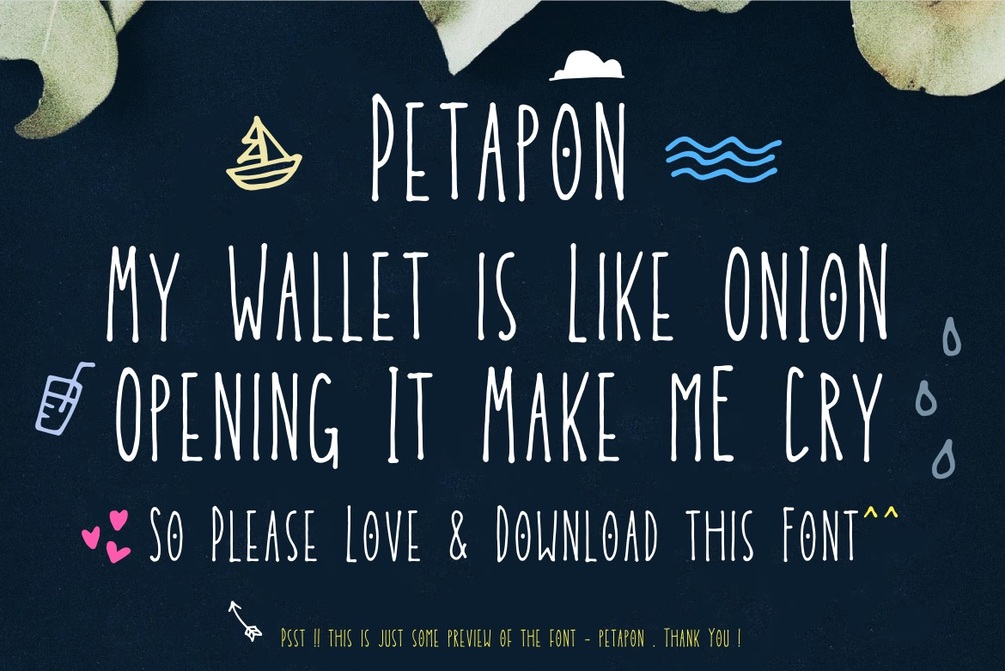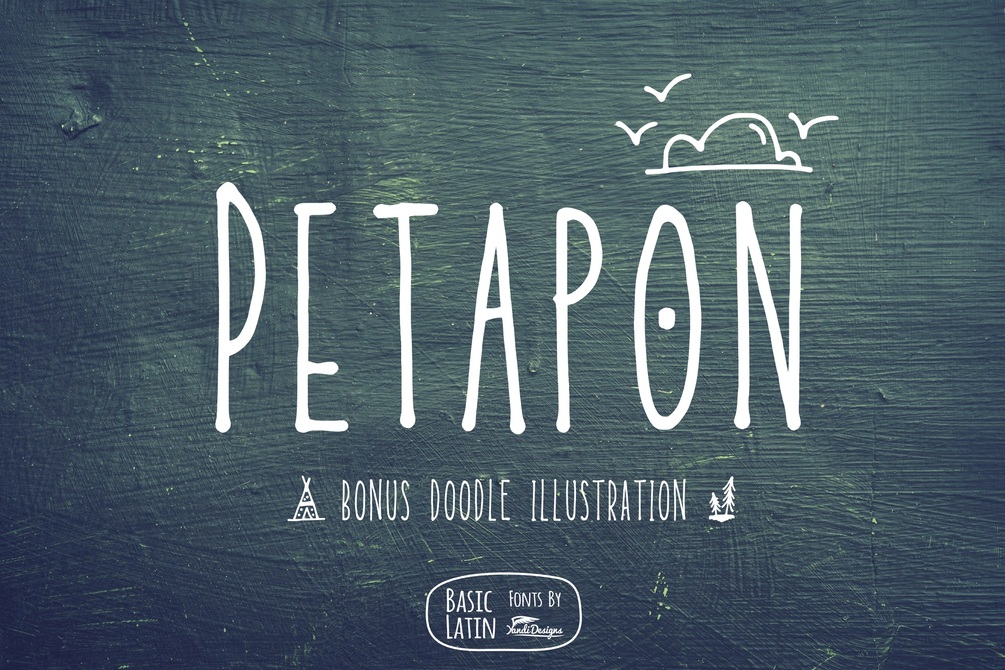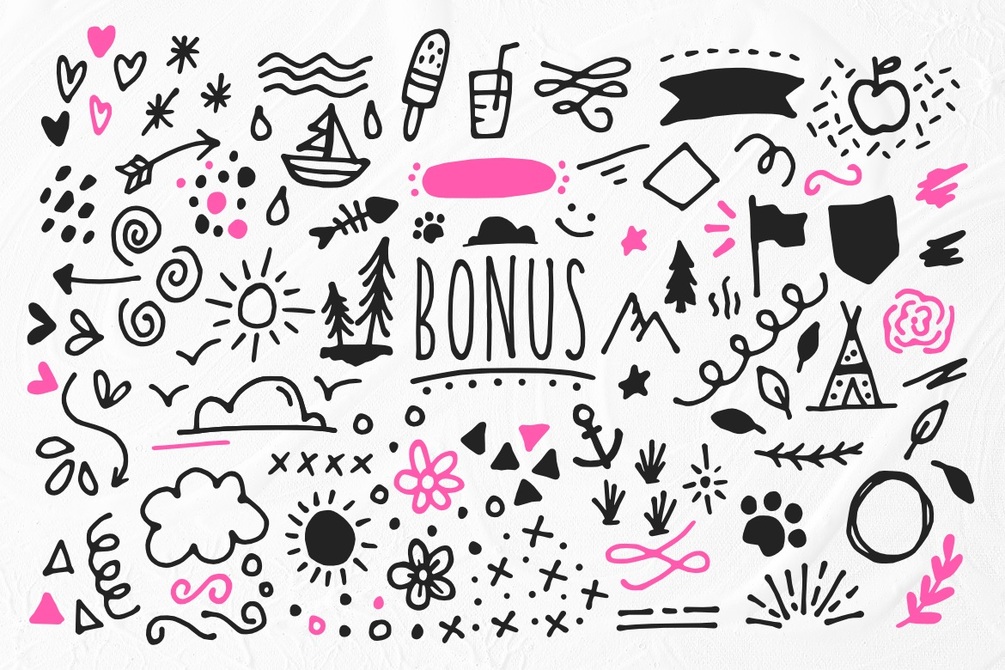
Petapon Font
Petapon Fun Font
Simple inky pen font , suitable for many project , quotes, logo , doodle, heading , title etc.
Basic Latin (Standard English character , number, punctuation)